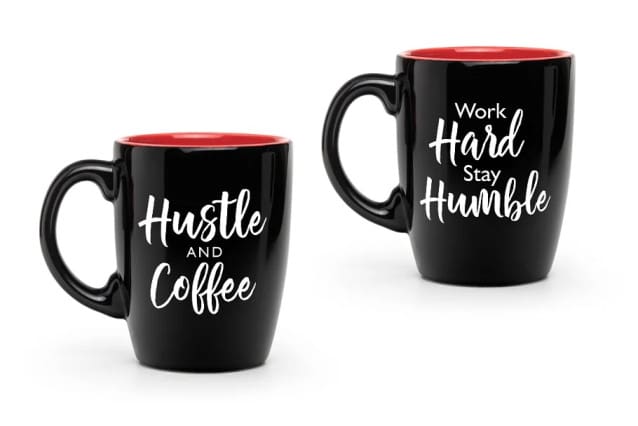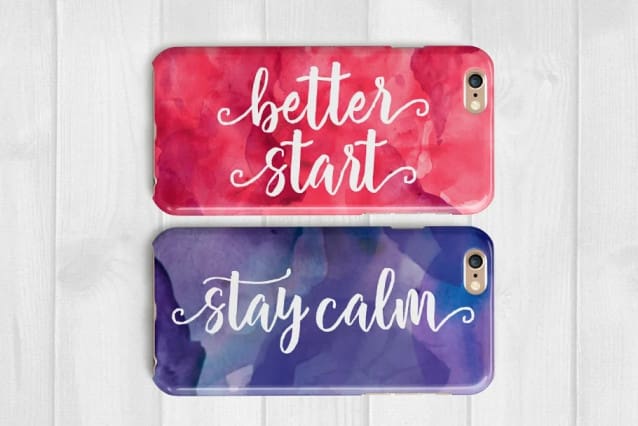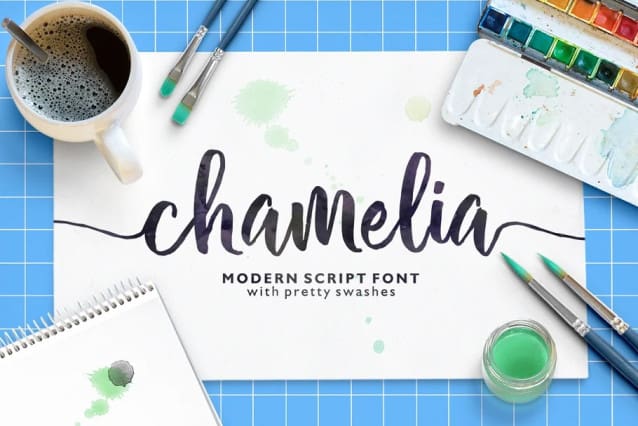
Chamelia Font
Chamelia Font is a modern script calligraphy, dynamic and pretty with swashes. Can used for various purposes. such as the title, signature, logo, wedding invitations, letterhead, signage, labels, newsletters, posters, badges, etc.
Chamelia Script features Open type feature, including initial and terminal letters,ligatures and International support for most Western Languages is included.